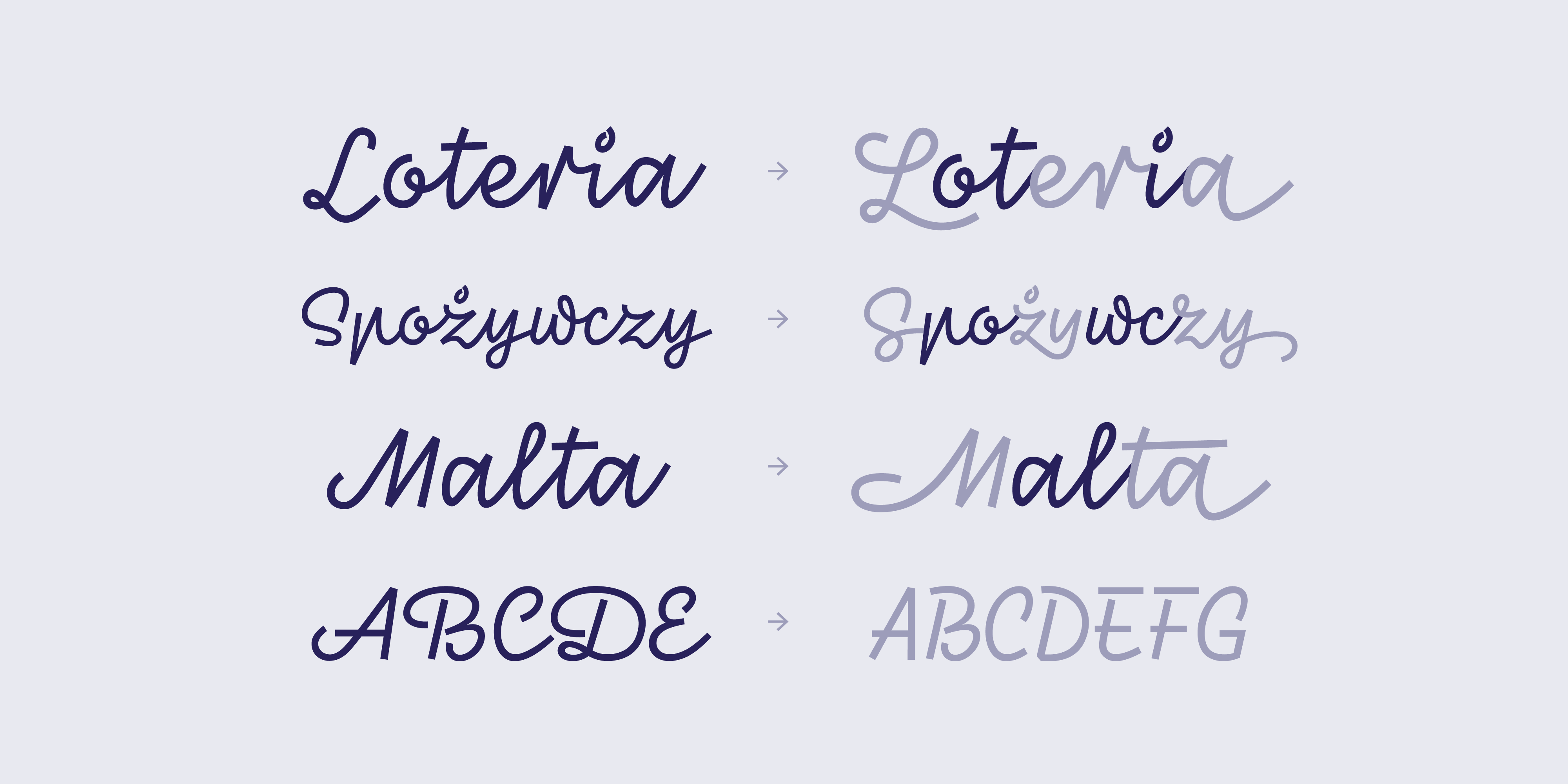
Script fonts are designed to capture the flourish and artistry of traditional hand lettering and calligraphy, usually as if written with a pen, brush, or marker.
18 Beautiful Free Premium Script Fonts Elegant Themes Blog. Easy font identifier online to use. Identify any webfont or font (commercial or free) from any website. The following resources are meant for designers and developers who often need to identify a particular font. Powered by the fontspring matcherator upload an image with type and we'll identify the fonts that match. This is a two part mini series showing you how to. A font identifier that works! The font matcherator will help you identify what the font is in any image. In this tutorial, we will teach you how to identify different fonts. Font finder that helps you to identify fonts from any image. Use a font identifier to speed up your workflow and improve your work! 🔎 upload the image and choose what the font you need. Powered by the fontspring matcherator. 700,000 fonts indexed free or commercial. You don't need to edit your image on your computer. Just upload any jpg, gif or png.
In this tutorial, we will teach you how to identify different fonts.
Script Fonts Font Squirrel. The font matcherator will help you identify what the font is in any image. 700,000 fonts indexed free or commercial. This is a two part mini series showing you how to. You don't need to edit your image on your computer. A font identifier that works! 🔎 upload the image and choose what the font you need. Just upload any jpg, gif or png. In this tutorial, we will teach you how to identify different fonts. Powered by the fontspring matcherator upload an image with type and we'll identify the fonts that match. Identify any webfont or font (commercial or free) from any website. Powered by the fontspring matcherator. Easy font identifier online to use. The following resources are meant for designers and developers who often need to identify a particular font. Use a font identifier to speed up your workflow and improve your work! Font finder that helps you to identify fonts from any image.
You don't need to edit your image on your computer.
🔎 upload the image and choose what the font you need. Licensed for personal and commercial use. This font identifier is simple and very useful if you want to find a close match for that font you love. Font finder that helps you to identify fonts from any image. If letters are touching or connected, use image editing software to disconnect them. Whatfontis is a free online font identifier that can help you with that. 🔎 upload the image and choose what the font you need. If there are multiple font styles or extraneous shapes in your image, please crop to the letters you are trying to match. The platform identifier code designates the computer on which the font is to be used. It provides font identifier apps on windows, android and ios.